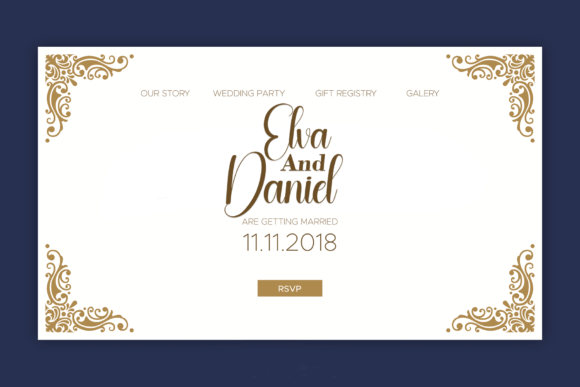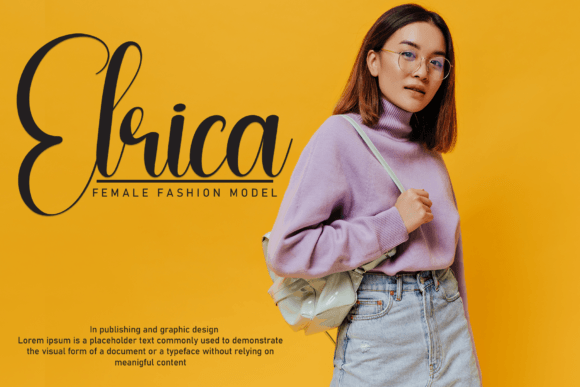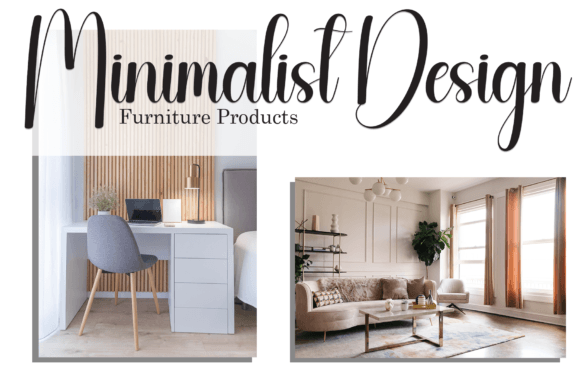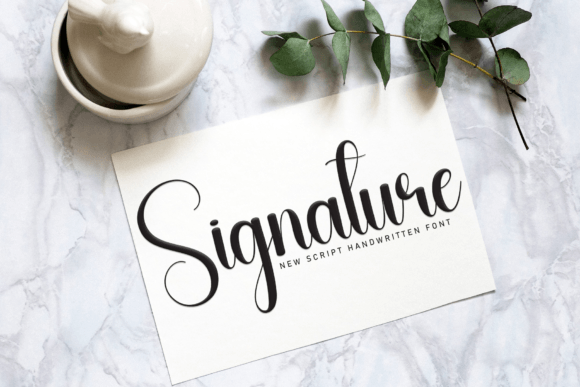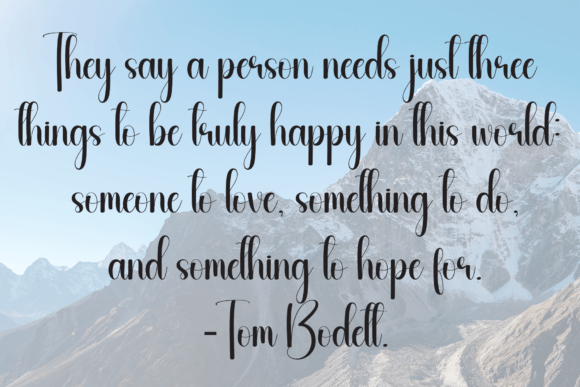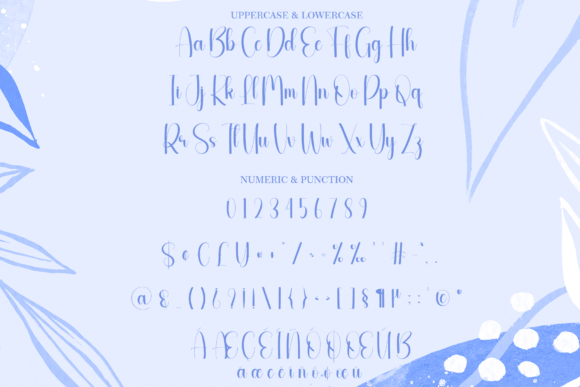
Introduction to Recent Font
Have you ever sat down with a blank sheet of paper, a pen in hand, and a creative project brewing in your mind? The possibilities seem endless, but the perfect font to bring your vision to life remains elusive. This is where the Recent Font comes in – a sweet and friendly handwritten font that adds a touch of warmth to any design. Whether you’re crafting a wedding invitation, a birthday card, or a promotional poster, Recent Font is the perfect resource to elevate your creative project.
As a designer, you understand the importance of a high-quality design resource. The Recent Font is a valuable addition to your toolkit, offering a fresh and neat look that’s perfect for a variety of applications. With its transparent background and free download option, you can easily incorporate it into your next project. Whether you’re working on a personal or professional design, the Recent Font is a great choice to add a fun and creative touch.
Key Features of Recent Font
- Unique, modern design with a focus on creativity and self-expression, perfect for artists, designers, and writers.
Honest Review: Recent Font
I recently stumbled upon Recent Font while searching for a unique design resource to enhance my creative project. I was thrilled to find that it’s available for free download, which is a major plus for designers like me who are always on the lookout for affordable and high-quality assets.
One of the standout features of Recent Font is its transparent background, which makes it incredibly versatile and easy to use in a variety of design scenarios. I was able to seamlessly integrate it into my project without any issues, and it added a level of sophistication that I was looking for.
- High-quality design that looks professional
- Unique and creative feel that sets it apart from other fonts
- ⚠️ Limited character set, which may not be ideal for longer text blocks
- ⚠️ Not suitable for all design styles, particularly those that require a more traditional look
Overall, I’m impressed with Recent Font and would definitely recommend it to designers who are looking for a unique and high-quality font for their creative project. With its transparent background and free download, it’s a fantastic resource that can help take your design to the next level.
Tips for Getting the Most Out of Recent Font
For optimal results, use Recent Font in conjunction with other design elements, such as colors and images, to create a cohesive and visually appealing design. Experiment with different font sizes, styles, and colors to find the perfect combination for your project.
Common Use Cases for Recent Font
Recent Font is ideal for various design projects, including business cards, brochures, posters, and social media graphics. Its high-quality design and transparent background make it a versatile and convenient design resource for any creative project.